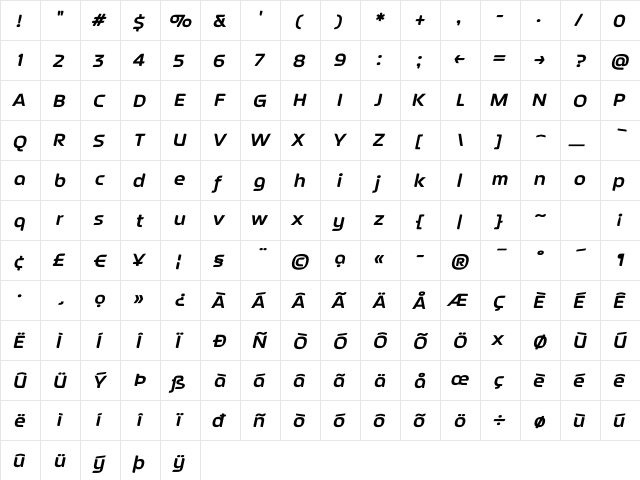
SeptemberBold Italic Regular
Design Context for SeptemberBold Italic Typeface
SeptemberBold Italic offers clean, dependable letterforms without strong stylistic allegiance, making it a practical choice for designers who need flexibility. Its italic angle brings a sense of urgency and motion to the letterforms. Its bold stroke weight gives it real presence on the page.
Pro Tip: Use SeptemberBold Italic for emphasis, pull quotes, and subheadings where its slanted energy can add rhythm to the layout.